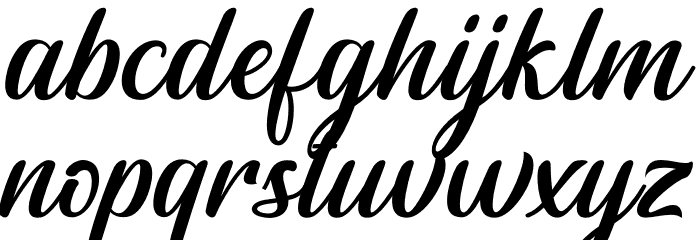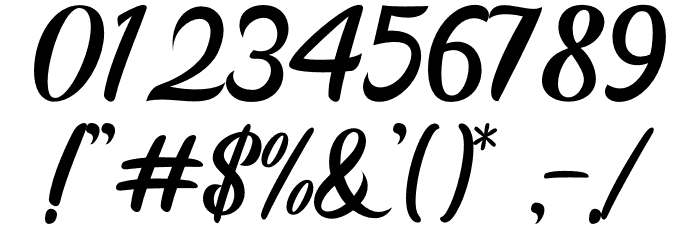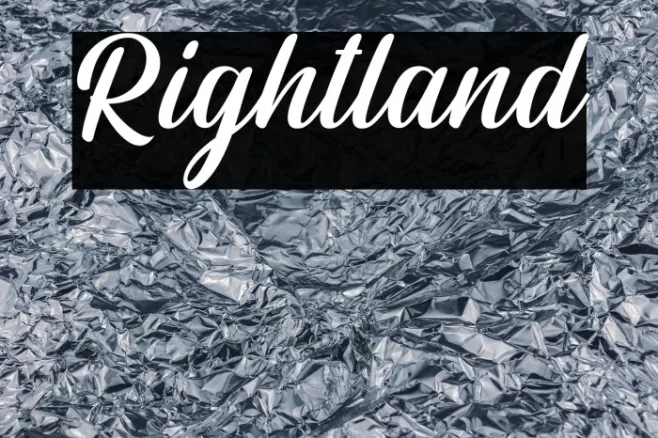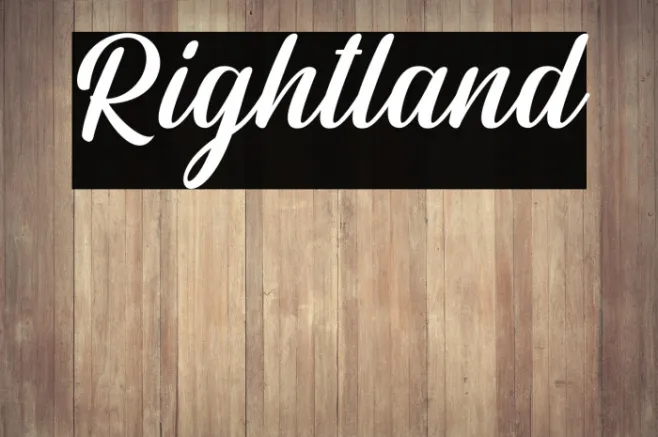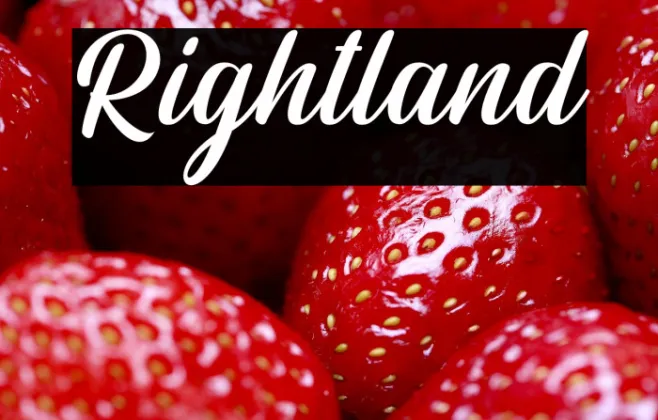
Rightland Font
This font features a flowing, cursive style with elegant, sweeping strokes that give it a handwritten appearance. The uppercase letters are slightly more formal, with a consistent slant and rounded edges, while the lowercase letters maintain a fluidity that enhances readability. The numerals are well-proportioned, matching the overall aesthetic of the alphabet. Special characters are integrated seamlessly, maintaining the font's cohesive look. This font is ideal for projects that require a personal touch, such as invitations, greeting cards, or branding materials that aim to convey elegance and sophistication.
A cursive, handwritten-style font with elegant, flowing strokes.
- Proposed Projects: Ideal for wedding invitations, personal branding, greeting cards, and elegant signage.
- Overall Style: Elegant, Handwritten
- Use Case: Headlines, Invitations, Branding